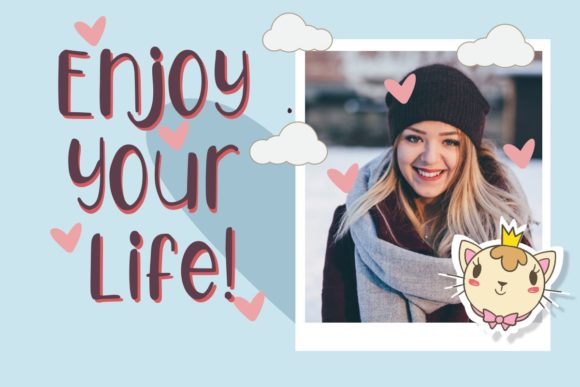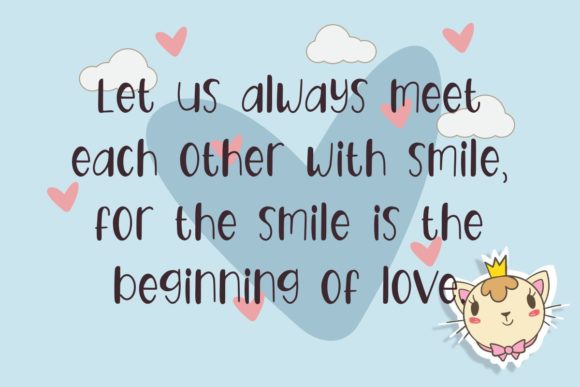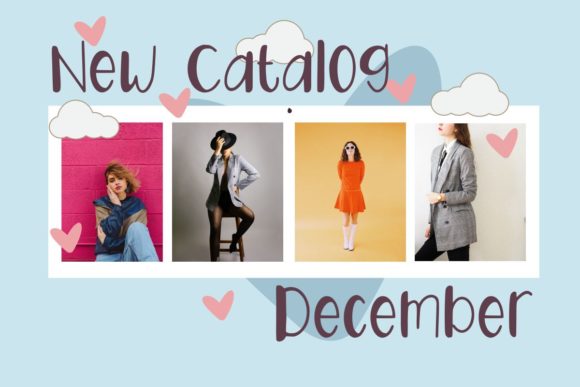
Introduction to Holydee Love Font
Have you ever been working on a creative project, pouring your heart and soul into it, only to feel like something’s missing? That’s exactly where the Holydee Love Font comes in – a delightful display font that adds a touch of whimsy and joy to your designs. Imagine your next graphic design project with a transparent background, and a sprinkle of playful, handwritten elements that make your message stand out.
As designers, we’re always on the lookout for high-quality design resources that can elevate our work and make it truly special. The Holydee Love Font is a valuable addition to any design arsenal, offering a unique and quirky touch that’s perfect for a wide range of creative projects.
With its free download and endless possibilities, the Holydee Love Font is an exciting discovery for designers of all levels. Whether you’re working on a branding project, a social media campaign, or simply a fun DIY craft, this font is sure to add a smile to your design and make it truly unforgettable.
Key Features of Holydee Love Font
- High-quality design resource ideal for creative projects, with a unique and romantic style.
- Transparent background, allowing for seamless integration with any design or project.
- Perfect for use in wedding invitations, greeting cards, and other romantic designs, thanks to its elegant and sophisticated aesthetic.
Honest Review: Holydee Love Font
I recently stumbled upon the Holydee Love Font and was excited to give it a try for my current design project. The first thing that caught my attention was the high quality of the font, which is perfect for any creative project that requires a touch of elegance and sophistication.
- What works well:
- ✨ The Holydee Love Font has a transparent background, making it easy to use with any design background.
- ✨ The high quality of the font ensures that it will look great on any medium, from print to digital.
- ⚠️ The font is not suitable for use as a bold font, as it can become too overwhelming.
- ⚠️ The font may not be the best choice for designers who require a large character set.
Overall, I’m quite impressed with the Holydee Love Font. It’s a great resource for designers who are looking for a high-quality, elegant font to use in their creative projects. With its transparent background and free download, it’s definitely worth checking out.
Introduction to Holydee Love Font
Holydee Love Font is a high-quality design resource ideal for various creative projects. It features a transparent background, making it versatile for use in different applications.
Tips for Getting the Most Out of Holydee Love Font
For optimal results, use Holydee Love Font in conjunction with other high-quality design resources. Experiment with different font sizes, colors, and arrangements to create visually appealing designs.
Common Use Cases for Holydee Love Font
Holydee Love Font is ideal for various creative projects, including:
- Birthday and anniversary cards
- Marketing materials and